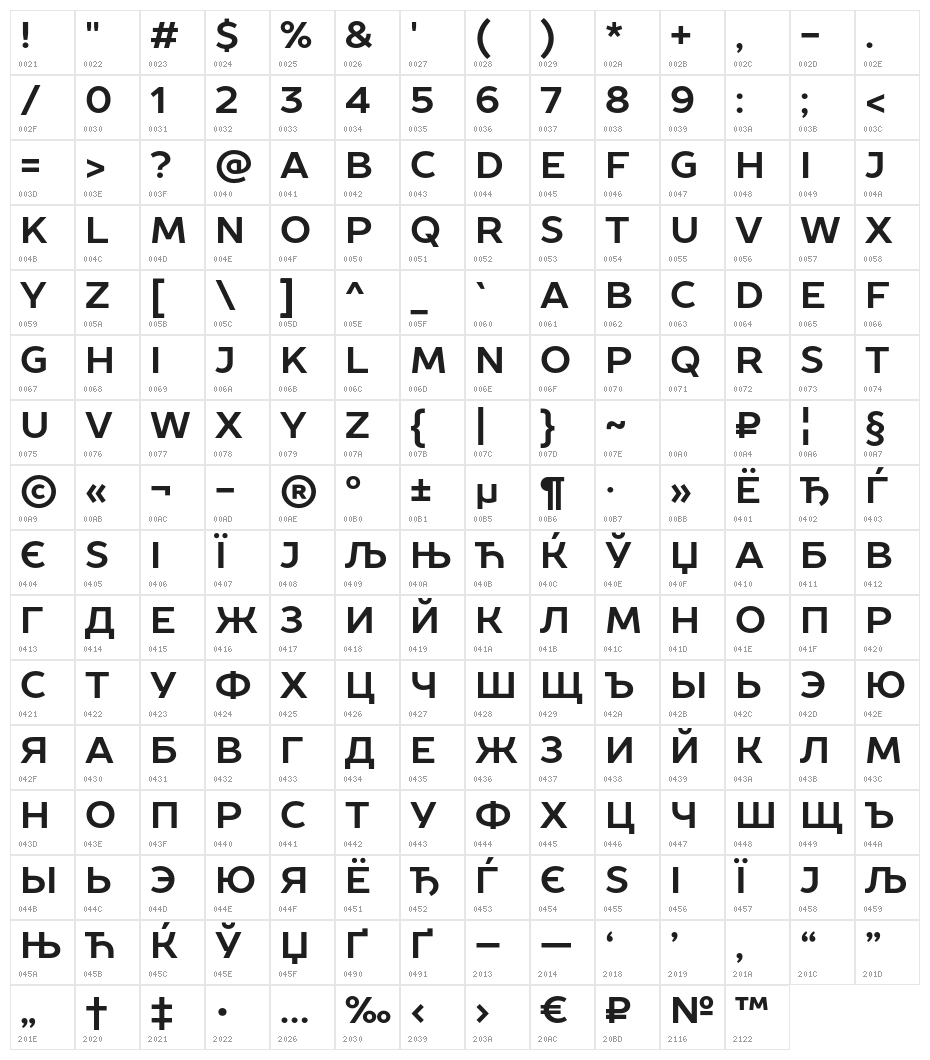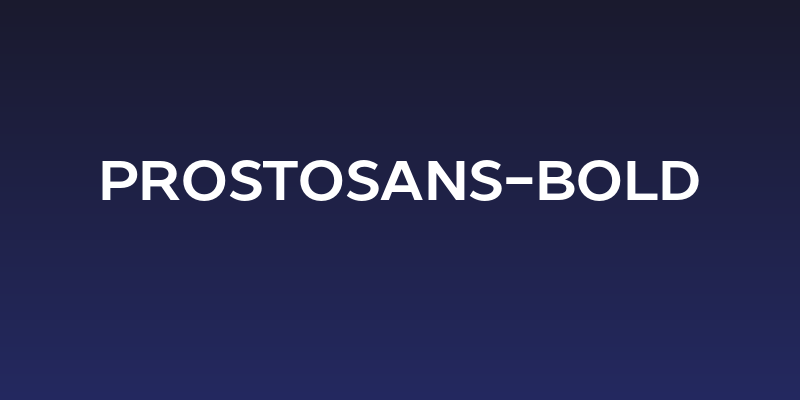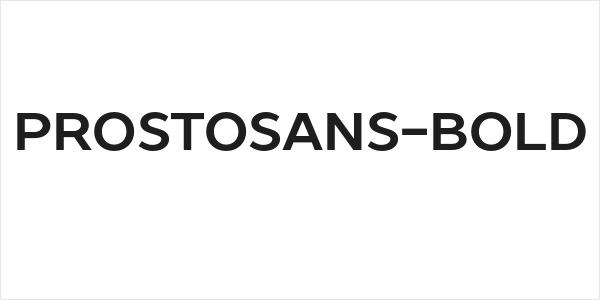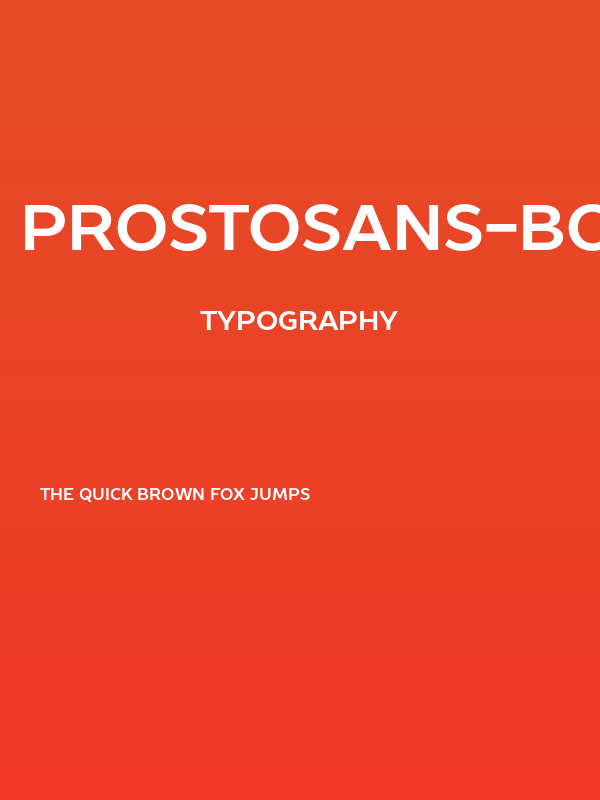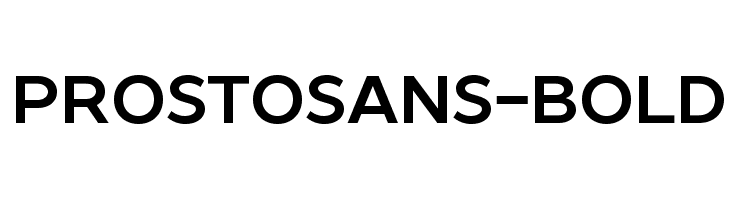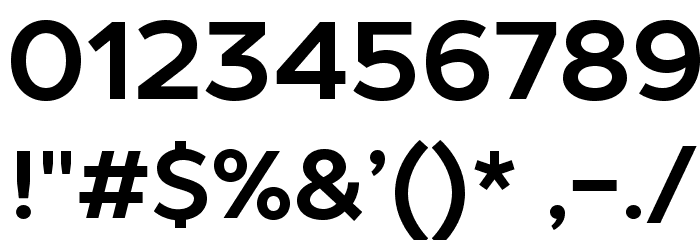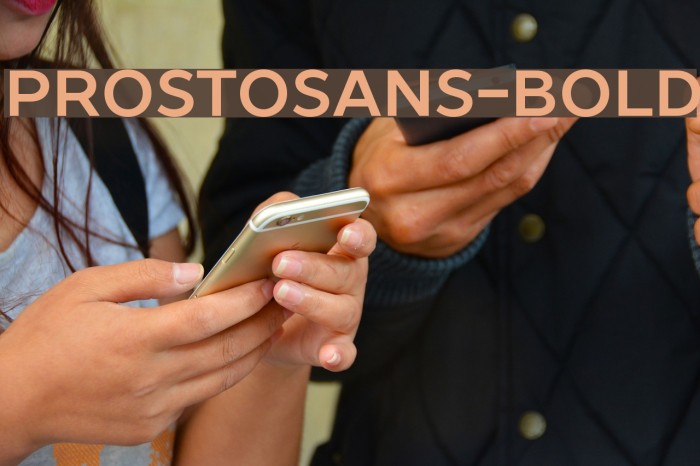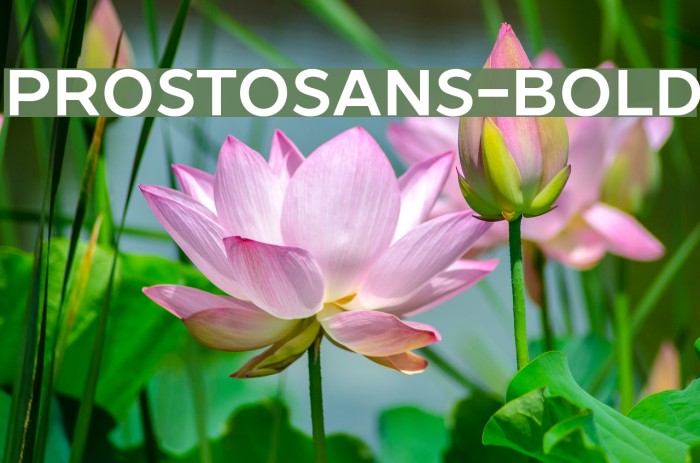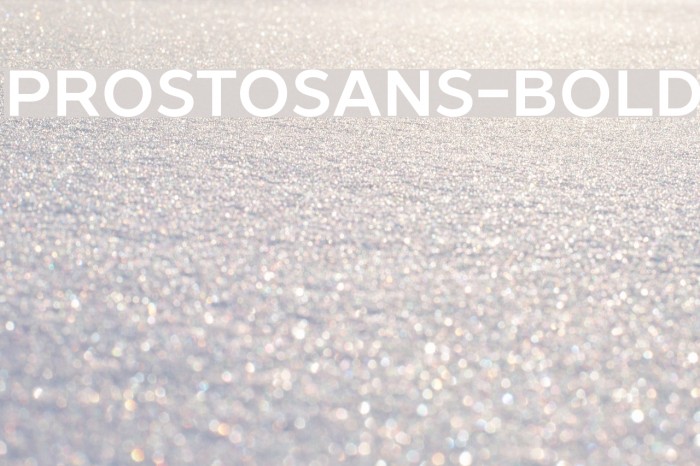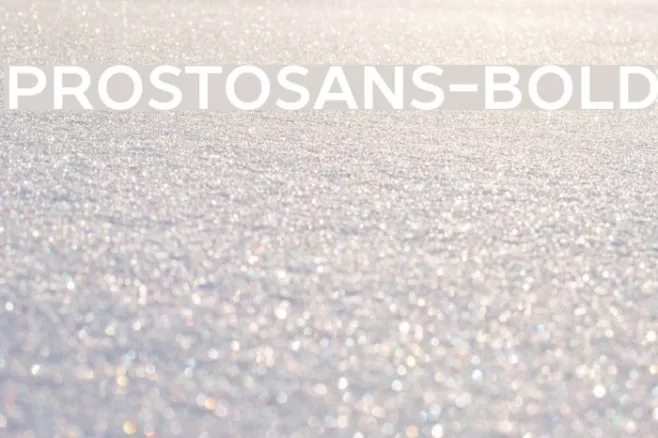
ProstoSans-Bold Font
ProstoSans-Bold Description
This font exhibits a clean and modern sans-serif style with bold, uniform strokes that provide a strong visual impact. The characters are well-proportioned with consistent line thickness, making it highly legible and versatile. The uppercase and lowercase letters maintain a harmonious balance, while the numerals are clear and distinct. The special characters are designed to complement the overall aesthetic, ensuring a cohesive look across different uses. Its simplicity and clarity make it suitable for a wide range of applications, from digital interfaces to print media.
| Use Case | Headlines, Logos, Digital Interfaces |
| Proposed Projects | Ideal for branding, advertising, web design, and editorial layouts. |